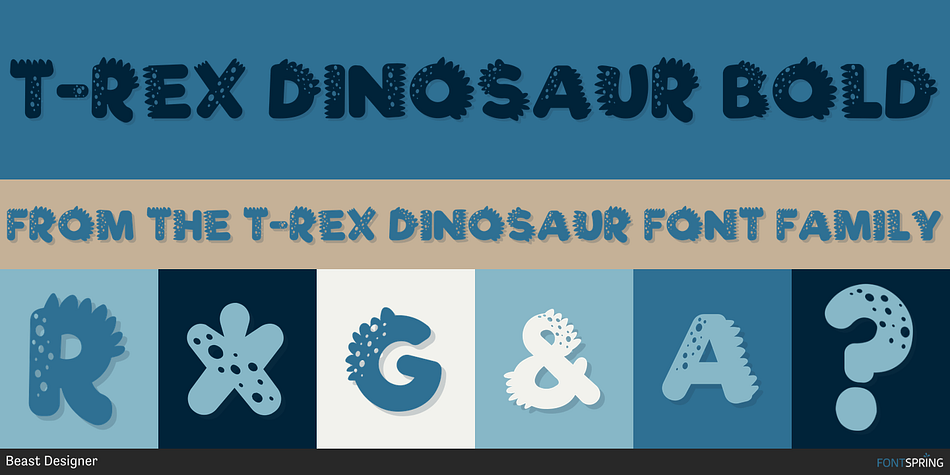
T-Rex Dinosaur Bold
Designed by Mohammed Lamjidi, T-Rex Dinosaur is a kids font family published by Beast Designer.
T-rex Dinosaur Font roars with bold, jagged lines inspired by the king of dinosaurs.
Perfect for adventurous designs, children’s books, and striking headlines.
Unleash prehistoric power in your projects with this unique typeface!